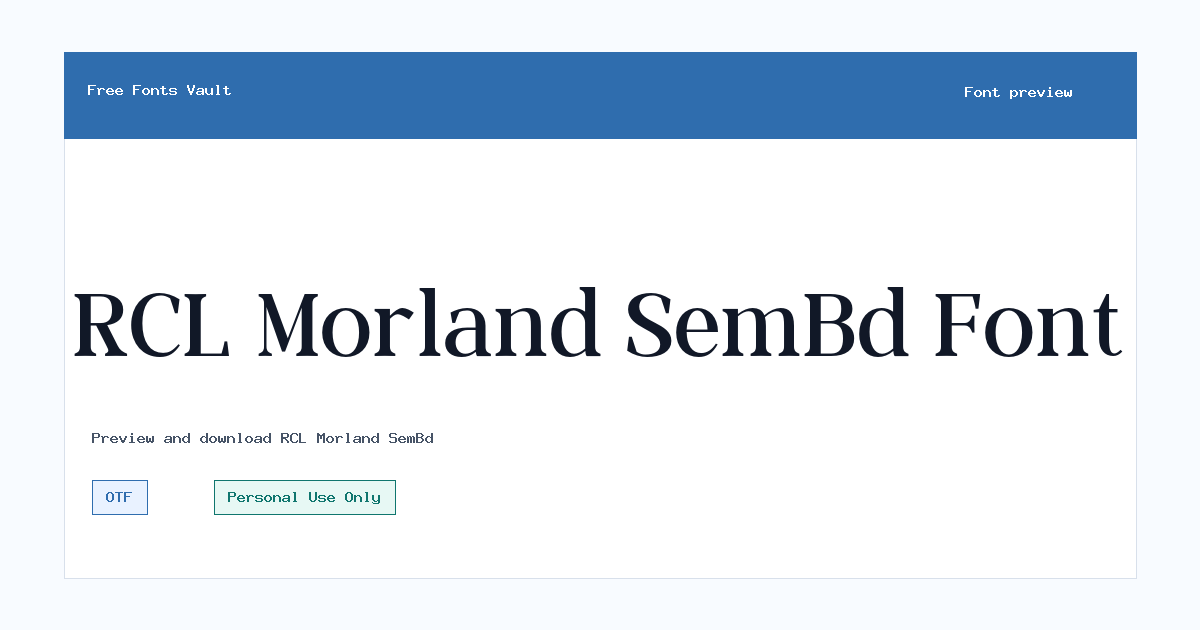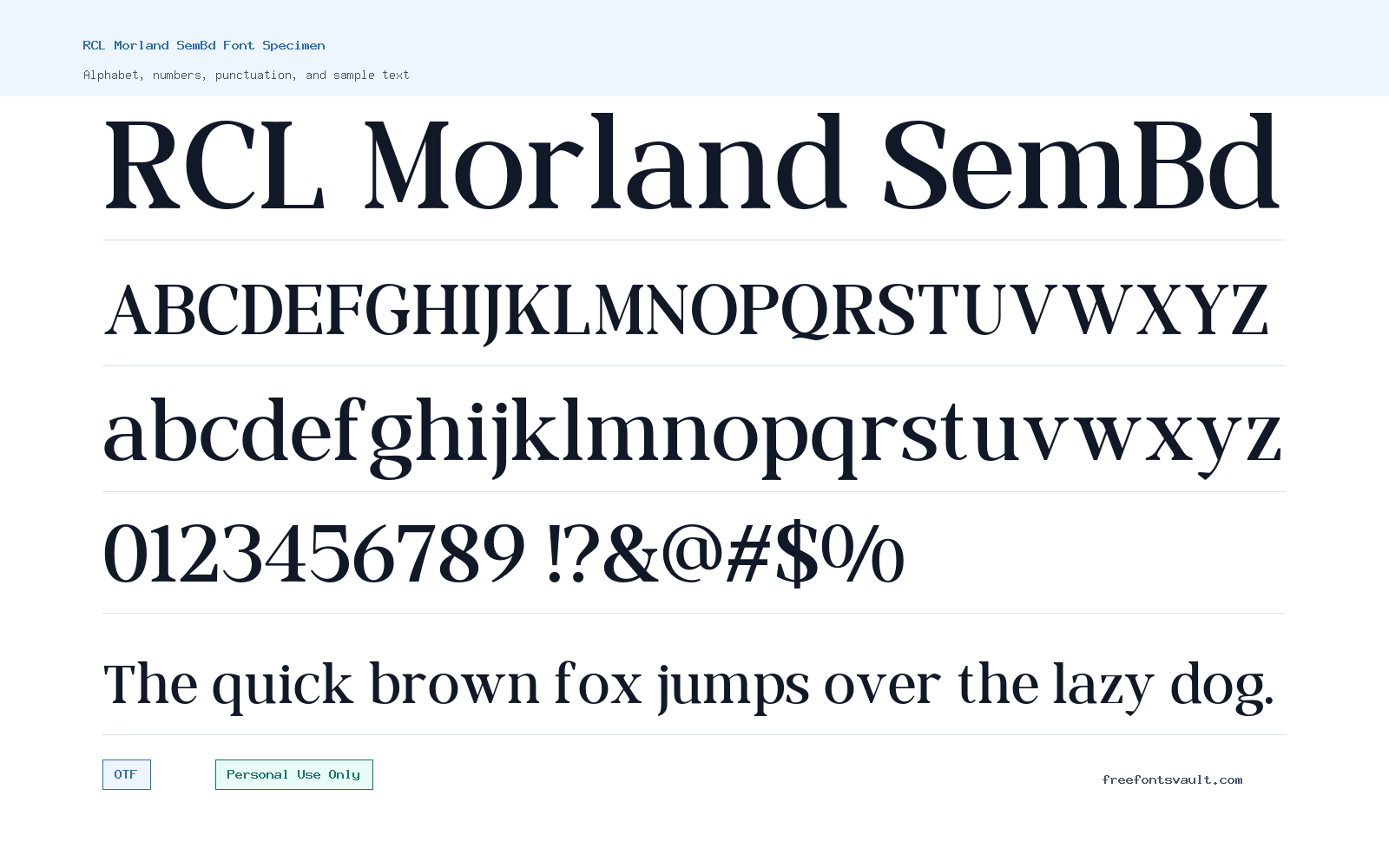
RCL Morland SemBd
RCL Morland SemBd Font
RCL Morland SemBd font.
RCL Morland SemBd is the semi-bold weight of the Morland serif family, with a matching italic style for stronger display text and emphasized lines. It is a good choice when you want a serif look that feels polished without becoming too thin or delicate.
About RCL Morland SemBd
Morland is presented by Roomspace Creative Lab as a modern serif font family by Bakhrudin Ja'far. The family is described as having refined proportions, smooth contrast, and multiple weights from Thin to Bold. RCL Morland SemBd sits near the heavier end of that range, so it gives headings, names, labels, and short quotes more presence than a regular weight while still keeping a formal serif character.
Use the semi-bold style when your text needs to stand out quickly: magazine-style titles, fashion or beauty mood boards, logo drafts, cover concepts, packaging mockups, invitation headings, and editorial layouts. The italic file is useful for subheadings, pull quotes, credits, or accent words, but it is best used sparingly. For long body copy, test the font at smaller sizes before committing, because a semi-bold serif can feel dense in paragraphs.
• Semi-bold serif weight with a matching italic style for emphasis and display typography.
• Part of the Morland family, which is described by the designer page as a multi-weight modern serif family.
• Serif letterforms with smooth contrast, useful for refined headlines, titles, and branding drafts.
• Editorial headlines, magazine covers, book cover concepts, and short feature titles.
• Logo drafts, brand mood boards, packaging previews, and visual identity experiments.
• Fashion, beauty, wedding, and boutique-style layouts where a more polished serif tone is useful.
• Pull quotes, nameplates, invitations, and short promotional graphics.
Try RCL Morland SemBd first in short text rather than long paragraphs. Preview uppercase titles, mixed-case brand names, numbers, and punctuation, then compare the upright and italic styles together. If the design needs body text, pair it with a simpler sans serif or a lighter serif weight from the same family so the page does not become too heavy.
What style is RCL Morland SemBd?
It is a semi-bold serif style from the Morland family. The download also includes a semi-bold italic style, which works well for emphasis, pull quotes, and accent text.
What should I use this font for?
Use it for short, high-impact text such as headlines, logo concepts, editorial titles, packaging mockups, invitations, and brand presentation graphics.
Can I use the italic style as a separate font family?
It is better to treat the italic as part of the Morland family. Use it alongside the upright semi-bold style for emphasis rather than presenting it as an unrelated typeface.